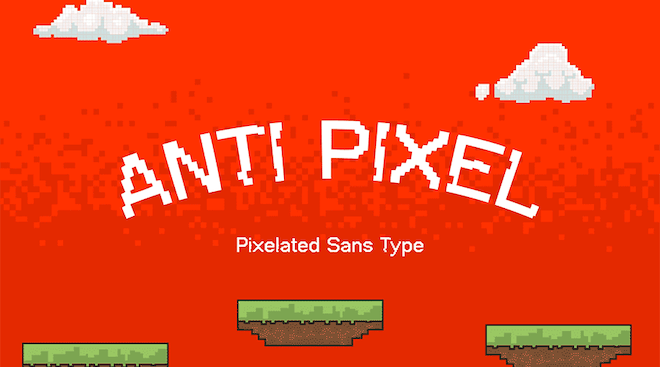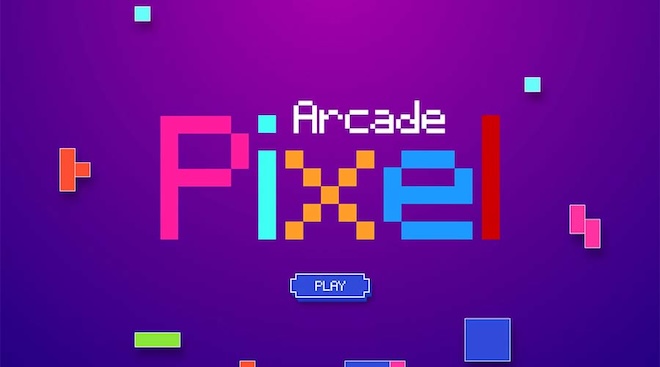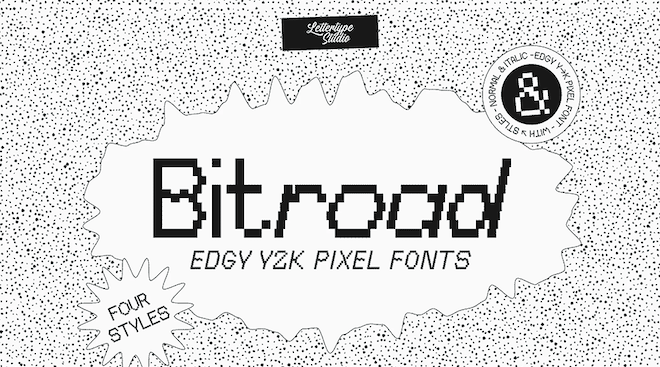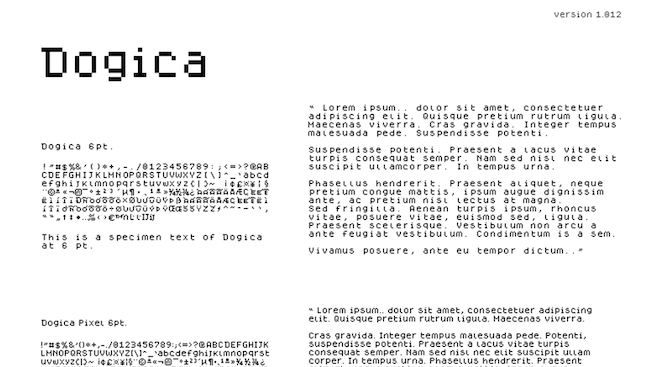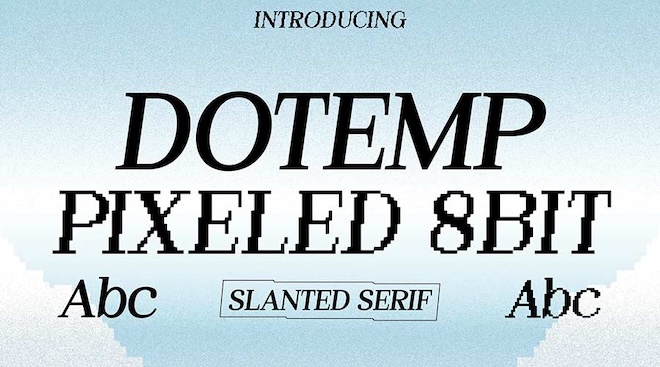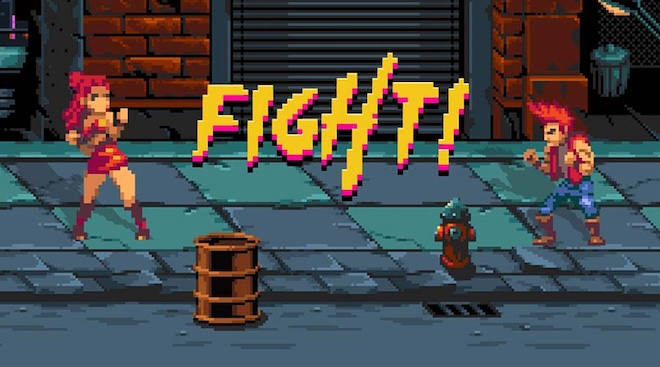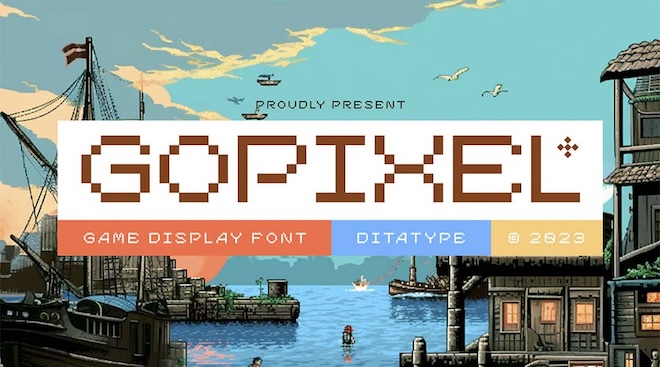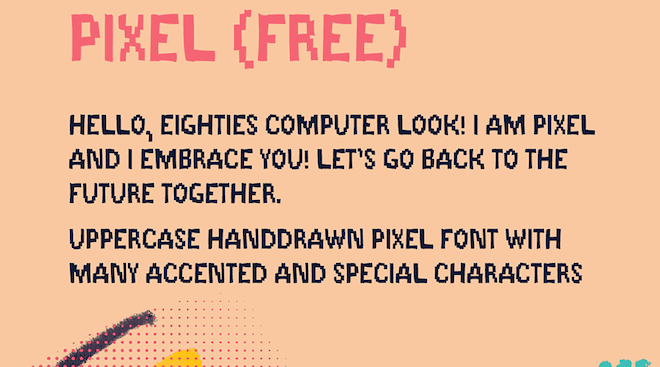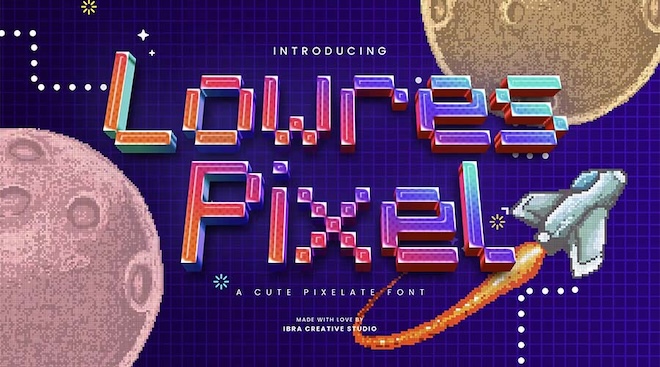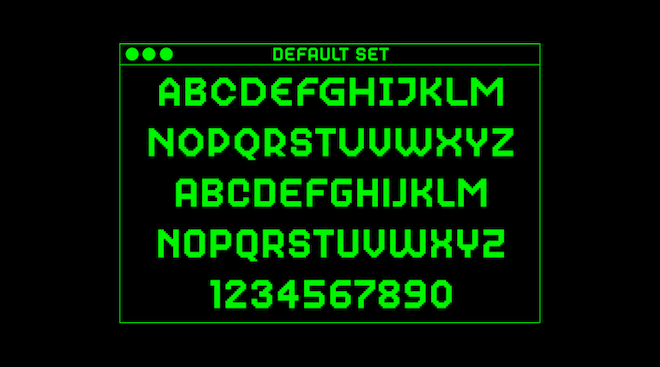
The retro look has an undeniable appeal. Pixelated typefaces can add an old-school, high-tech quality to your designs while evoking memories of the classic arcade games and the early days of digital technology. However, they’re not limited to just being nostalgic. You can use them to create a sleek interface for your next app or as the headline for your gaming blog. They provide whimsical touches to everything from printed pieces to immersive canvas and video storytelling.
There is a wide variety of fonts to pick from in the world of pixel fonts, as you are not just limited to basic square letters, but have many options for both serif (traditional style) and sans-serif (modern style) letters with different thickness and character spacing that can be customized to add a unique “look” or ‘attitude’ for your retro/digital software application or project.ique “vibe” and personality, perfect for any retro or digital project.
Bitroad Edgy Y2K Pixel Font
Bitroad combines the flashy neon effects of the 80s with the smooth, digital feel of new century technology and creates a very strong fusion of styles that will impress you. It has both styles that are bold and easy to read, allowing it to meet every type of design project requirement. Bitroad offers OTF, TTF and Web fonts to accommodate your preference.
Thaleah Fat Pixel Font
The exciting addition of this typeface to your collection can help transform the way headlines communicate with your audience. Designed specifically for use in gaming development, but also refined enough for your most professional web pages, this font has the ability to create an interesting narrative from solely headlines. It is bold, it is loud, and it will surely support any major project going forward.
Tiny5 Pixel Font
Tiny5 is a prime example of pixelation without apology. With its thick character shapes and sharp, aliased edges, it does not compromise its digital aesthetic. In order to keep the visual character bold and powerful, use only for high-impact headlines and digital banners.
Dotemp 8Bit Pixel Slanted Font
With Dotemp, you can create beautiful work for your next design project. Dotemp is an 8-bit serif variable font that captures the classic style and experience of old-school operating system interfaces. There are two unique versions of Dotemp, but both have similar attributes, including their regular and pixelated forms. Add a touch of retro flair to your typography simply by choosing one version or another to complete your design project! a few clicks.
Dogica Pixel Font
By prioritizing legibility rather than defaulting to typical pixel font constraints, Dogica offers fixed-width and kerned styles. It also retains character definition in both small and large characters, resulting in superior performance within all UI and design environments.
Anti Pixel Font
The pixel structure of this font consists of pixels that have been anti-aliased for improved readability and a retro look. Combining retro styled 8-bit design with contemporary rendering techniques, this typeface offers numerous options to create subtly vintage inspired UI or display type.
Arcade Pixel
Take a trip back in time to an age of high scores and pixelated beauty. This font steers clear of over-the-top aesthetics in order to provide a classic and authentic feel. Simplicity will help make your message as powerful and relevant to tradition as possible.
Fight! Pixel Font
Inspired by classic fighting games, the typeface has a lot of energy and punch to it. The bold and italicized typeface makes it suitable for display and headline provision. Great use of typeface would be in the creation of high-stakes images, but don’t forget to be careful of the lamps when you are done celebrating!
Lower Pixel Font
This nostalgic typeface evokes an 8-bit gaming era and features blocky designs that look like something from classic gaming consoles. The neat, sleek lines create an ideal blend of modern beauty and retro flair.
Go Pixel Font
With the all-caps pixel typeface, add an edge to your retro layout. With variable character outlines, you’ll achieve a unique look – just like the original. And because of the low-contrast finish, it will look impressive regardless of how big or small you scale the design. This one-of-a-kind typeface will be functional in any design application.
Handdrawn Pixel Font
This typeface has both a traditional bitmap appearance and a modern handwritten look, making it a great way to differentiate yourself. Along with the unique look of its letters, this font also offers a wide range of special characters, positioning you well to complete any design challenge.design tasks.
Pixel Code Font
Designed for prolonged sessions of coding, Pixel Code is designed to be a high quality modern font by using a combination of a digital pixel construction style with programming ligatures to provide great legibility while preserving the original identity of the vintage terminal display’s character.